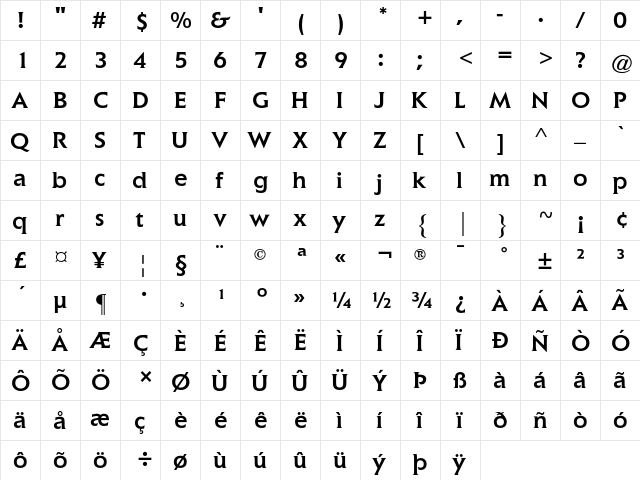
Elan AT Medium Regular
Design Context for Elan AT Medium Typeface
Elan AT Medium is a composed and adaptable typeface that performs quietly and consistently across a wide range of design contexts.